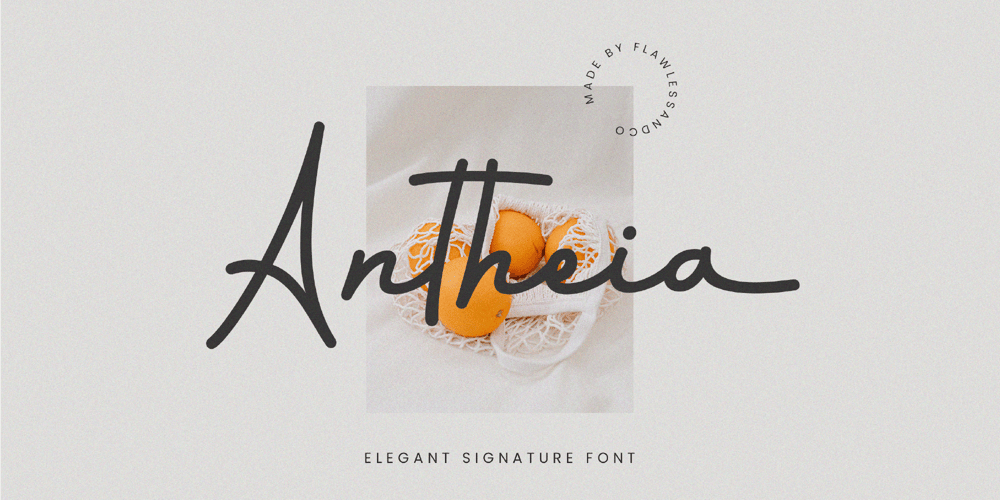
Antheia Font Family was designed by Achmad Yani and published by Flawlessandco. Antheia contains 1 styles and family package options. Introducing “Antheia” – An Elegant Signature Font. Experience the epitome of elegance and sophistication with “Antheia,” a graceful signature font that adds a touch of timeless beauty to your designs.There’s some connected letters and some alternates that suitable for any graphic designs such as branding materials, t-shirt, print, business cards, logo, poster, t-shirt, photography, quotes .etcThis font support for some multilingual. Also contains uppercase A-Z and lowercase a-z, alternate character, numbers 0-9, and some punctuation.If you need help, just write me! Thanks so much for checking out my shop!